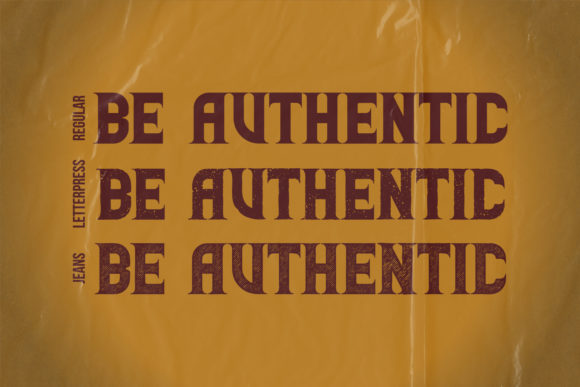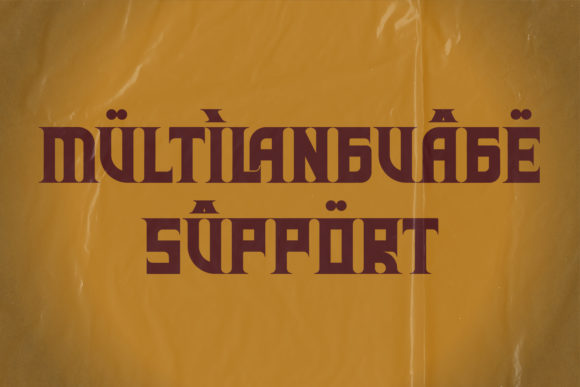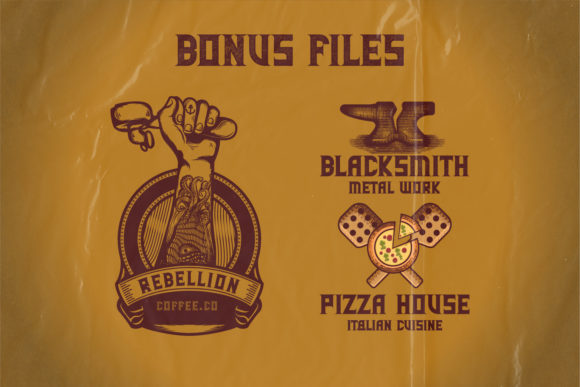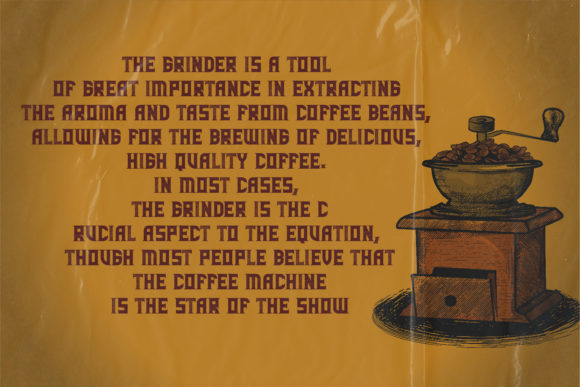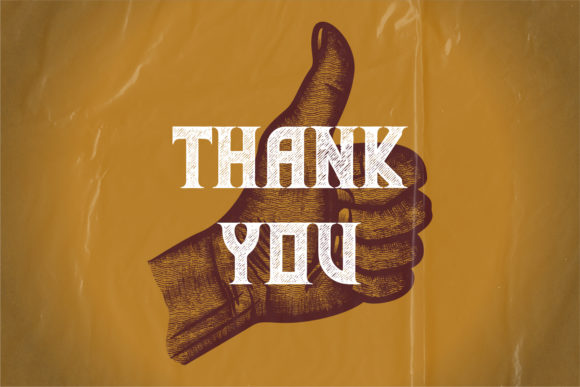
Introduction to Lathena Font
Lathena is a daring vintage styled display font.
Rough textured and neat, this font will make each of your designs look out of this world .
Lathena Font offers exceptional quality and versatility, making it a valuable addition to your design toolkit. Whether you’re creating for personal projects or commercial use, Lathena Font delivers professional results.